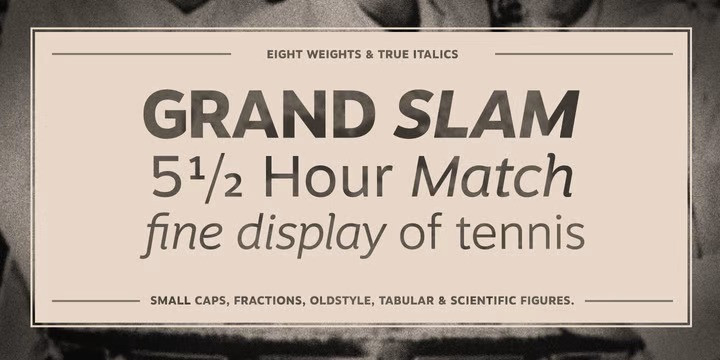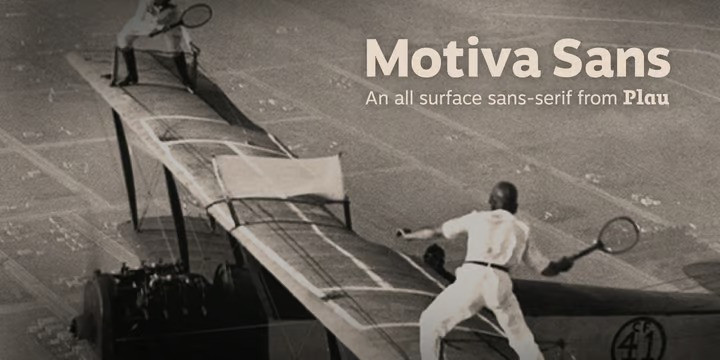
Motiva Sans Font
Motiva Sans Font Family is the chosen typeface for Valve’s Steam OS, a 125.000.000+ users gaming platform. With 7 weights and matching italics (a total of 14 fonts), it comes with essential OpenType features such as small caps, caps to small caps, tabular, lining, oldstyle figures, fractions as well as extended language support and alternate characters in the italic weights. It performs well in printed and digital environments. The italics are more cursive than the average sans serif design and provide very good contrast to the their roman counterparts. Motiva Sans pairs beautifully with our high-contrast didone serif Tenez or with our cute vertically connected script Primot.